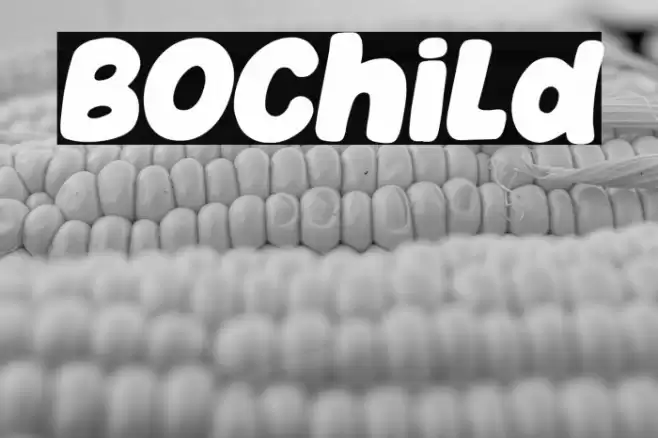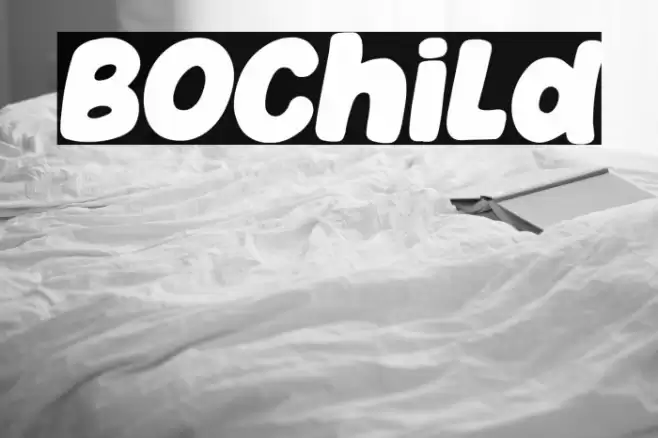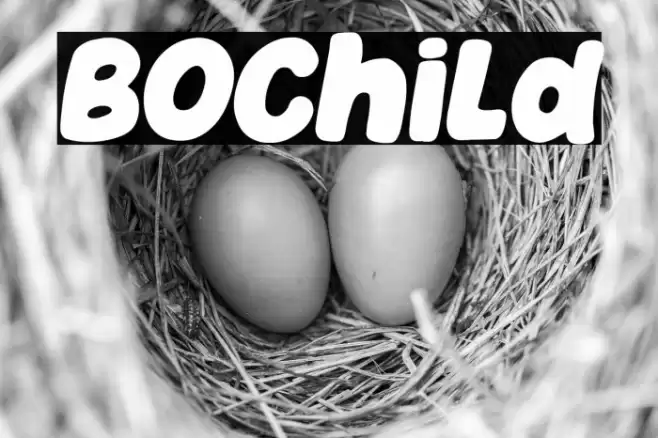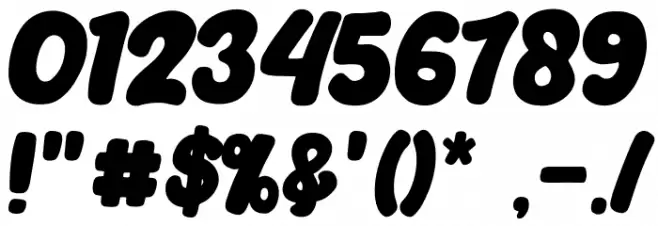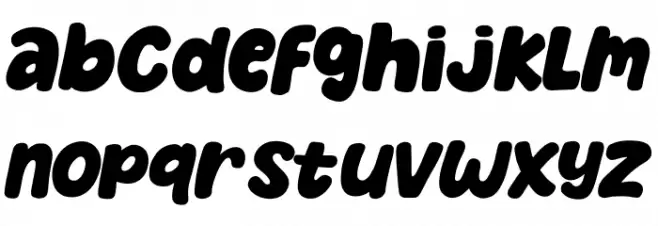
Bochild Font
Bochild Description
This playful and bold font features rounded, bubbly characters that convey a sense of fun and approachability. The letters are thick and have a consistent stroke width, giving them a strong presence on the page. The overall design is informal and friendly, making it ideal for projects that aim to capture a youthful or whimsical vibe. The characters are well-spaced, ensuring readability while maintaining a cohesive look. The font includes a full set of uppercase and lowercase letters, numbers, and a variety of special characters, making it versatile for different design needs.
A playful, bold font with rounded, bubbly characters ideal for fun and informal designs from Cartoon fonts.
- Font: Bochild
- Proposed Projects: Perfect for children's books, playful branding, party invitations, and casual social media graphics.
- Overall Style: Playful